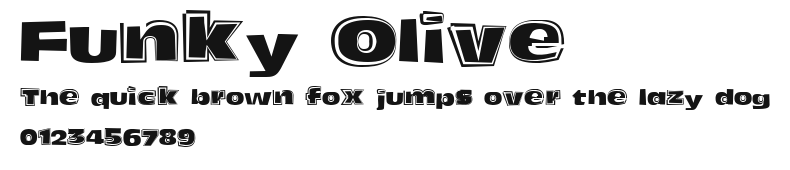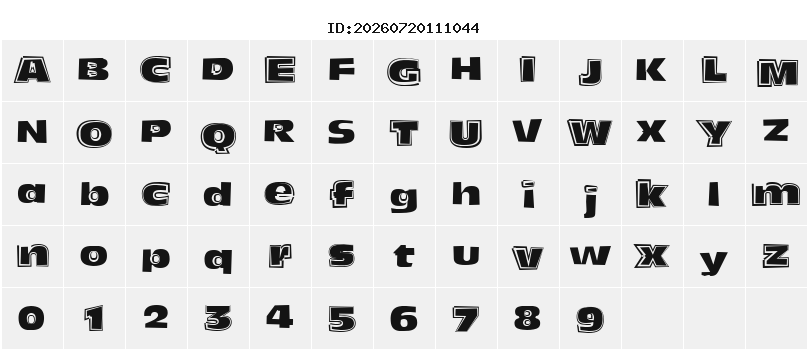
Funky Olive Preview
• Font Name: Funky Olive
• Font Style: Mixed
• Full Font Name: Funky Olive Mixed
• Designer: Bethany Phipps
About Funky Olive.ttf
Funky Olive.ttf is a modern, elegant sans-serif font designed for ultimate readability and visual harmony. Perfect for branding, headlines, web design, and print materials.